The world of logo creation is evolving, with AI at the forefront of this revolution. Many AI tools now help creators craft stunning logos in minutes. Surprisingly, around 78% of companies have integrated AI into at least one area of their operations. That’s why the best logo AI prompts can be your shortcut to standout brand visuals.
Key Takeaways
- Top AI logo prompts can accelerate your creative workflow.
- Prompts tailored by style suit various sectors and branding goals.
- Combine AI-generated logos with expert-recommended logo typefaces.
How to Write Effective Logo Prompts for AI
Before jumping into the best AI prompts for logo design, it’s important to understand how to craft a good prompt. Here are some quick tips to help your AI generate logos that truly fit your brand identity.
- Avoid vague language and use specific words to describe what you want the logo to look like.
- Mention things like “modern style,” “pastel colors,” or “calm and professional vibe” to guide the AI.
- Use keywords like “vector,” “minimalist,” “flat icon,” to help the AI understand the format, complexity, and design trends you’re aiming for.
32 Best AI Logo Prompts That Work for Any Industry
Minimalist Logo Prompts
1. Generate a fox logo in monoline style, with clean geometric lines.
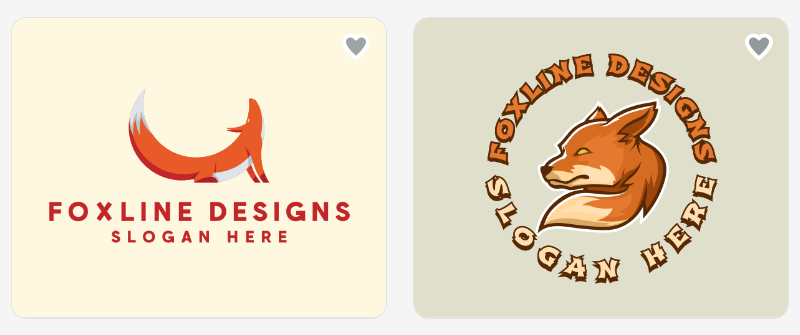
2. Create a simple abstract mountain logo, soft neutral colors, flat design, vector format.
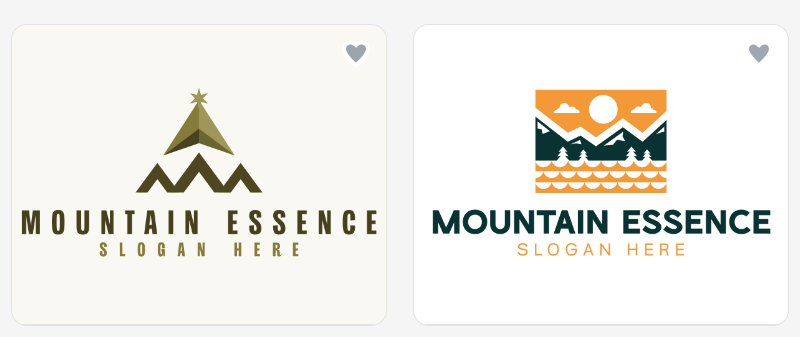
3. Design a logotype with thin outlines, centered composition, and bold fonts.
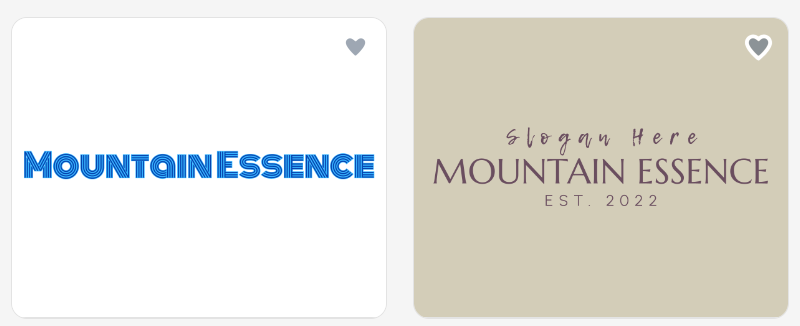
4. Craft a modern and minimalist cat logo, monochrome palette, ideal for a tech brand.
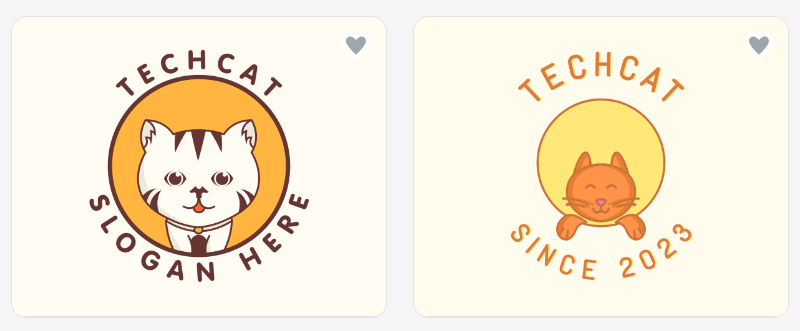
5. Produce a minimal circular logo with the letter “S” in sans-serif, Golden Gate Bridge object in the center, clean and elegant.
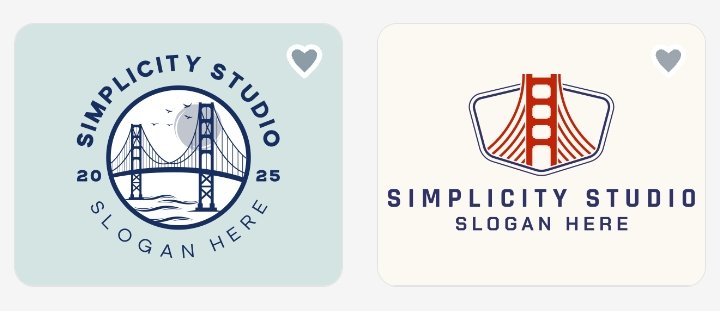
6. Build a minimalist sun icon logo, golden yellow lines on white, inspired by Scandinavian design.
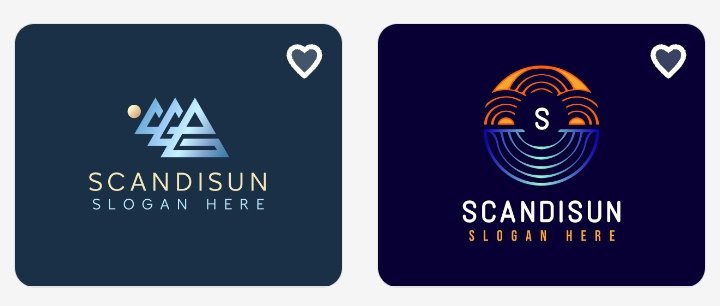
Vintage or Retro Logo Prompts
7. Generate a retro coffee shop logo emblem with a hand-drawn cup, earthy tones, and worn-out texture.
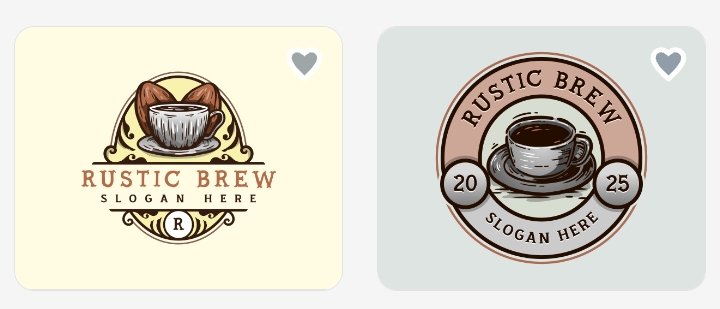
8. Create a vintage barber shop logotype featuring bold serif typography and classic badge style.
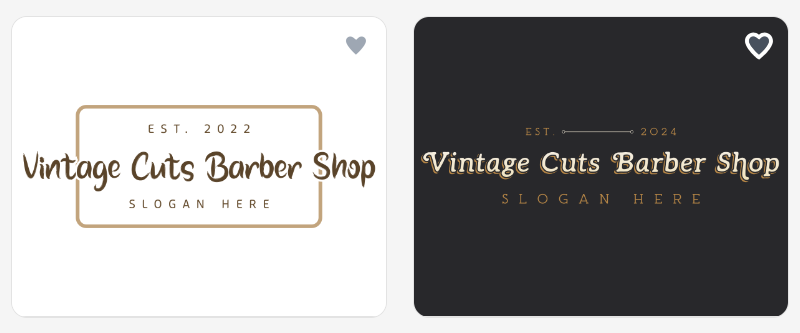
9. Design a 1950s diner logotype with a neon script font, pastel colors, and chrome accents.
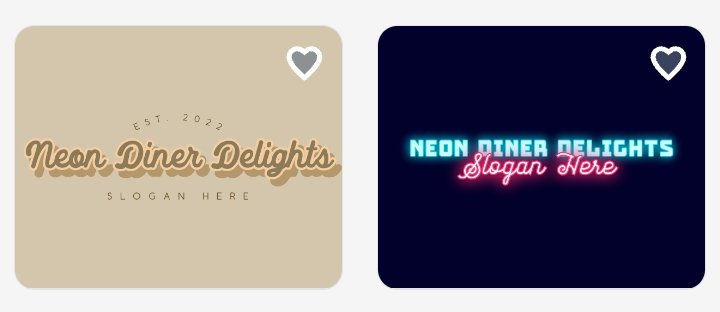
10. Craft a retro travel agency logo with an old-school suitcase, stamp-style border, and faded colors.
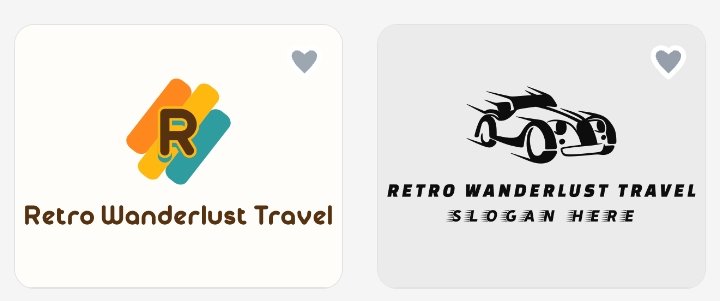
11. Produce a vintage motorcycle club logo emblem, grunge texture, skull emblem, and bold distressed lettering.
12. Build a classic brewery logomark with a hop illustration, ribbon banner, and black background.
Best AI Logo Prompts (Futuristic or Tech-Inspired)
13. Generate a futuristic AI company logotype with glowing neon lines, a dark background, and sleek typography.
14. Create a tech startup logomark featuring a stylized circuit board pattern, blue gradients, and sharp edges.
15. Design a cyberpunk-inspired logotype with holographic effects, glitch textures, and futuristic sans-serif font.
16. Craft a minimal tech logo using hexagonal shapes, metallic tones, and a digital interface vibe.
17. Produce a space-themed logo for a robotics brand, featuring galactic and modern tech lettering.
18. Build a high-tech security logo with a shield shape, clean vector lines, and a digital lock symbol.
Nature and Organic Style Logo Prompts
19. Generate a botanical skincare logotype with hand-drawn leaves, soft green tones, and a clean serif font.
20. Create an organic farm logo featuring a sun rising over fields, earth-tone palette, and vintage badge style.
21. Design a minimalist tree logo with thin branches, natural textures, and neutral background.
22. Craft a nature-inspired spa logotype using a lotus flower icon, pastel colors, and calm, rounded typography.
23. Produce an eco-friendly product logotype with soft gradients, and organic shapes.
24. Build a natural juice brand logo with a fruit illustration, watercolor effect, and simple looking font.
25. Develop a forest retreat logo emblem featuring a pine tree silhouette, warm earth tones, and rustic elements.
Best Logo Prompts AI Ideas (Playful or Hand-Drawn Style)
26. Generate a playful children’s toy logotype with doodle-style look, bright colors, and rounded lettering.
27. Create a hand-drawn bakery logo featuring a smiling cupcake, soft pastel palette, and quirky font.
However, even the most well-crafted AI-generated logo needs the right typography to truly shine. To complete your branding, consider using high-quality fonts for logos that elevate your final design. Especially when your logo will appear on merchandise, digital ads, or print materials, choosing a font with the right licensing and flexibility is crucial.That’s where Letterara Studio steps in with beautifully crafted fonts that come with a professional license for up to 500,000 prints or digital uses. Perfect for startups or growing brands, we even offer freebies for small enterprises. So, after testing logo design prompts, enhance it with trusted typography!